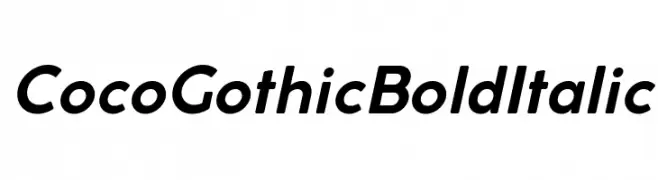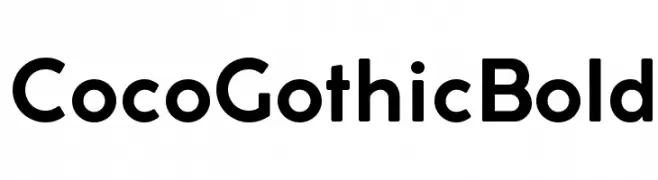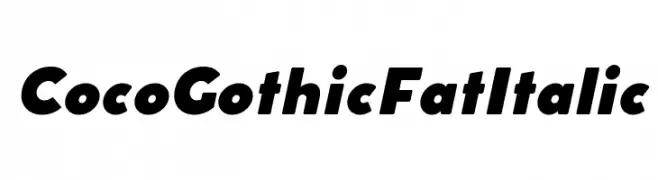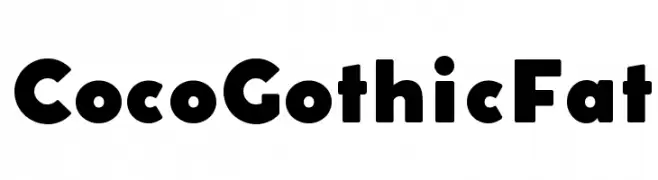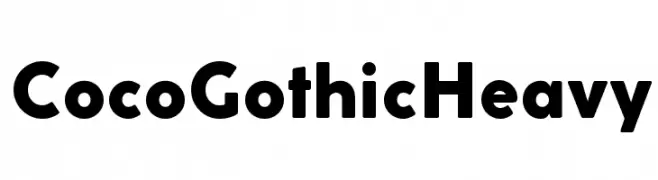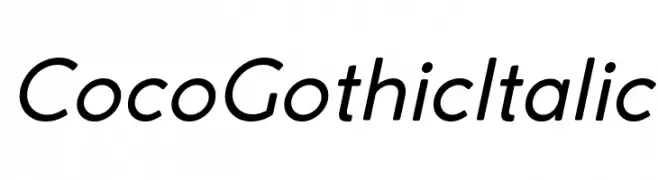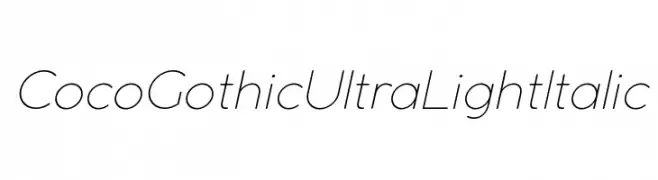
A bold, italicized font with a modern geometric style.
A sleek, modern, light italic sans-serif font with elegant slant.
A bold, geometric font with a modern and clean design.
A bold, italicized font with a modern, geometric style.
A sleek, ultra-light italic font with a modern and fluid design.
A sleek, ultra-light font with a modern, minimalist design.
A modern, italicized font with a sleek and uniform design.
A bold, italicized, and modern font with a geometric design.
A bold, modern sans-serif font with clean, geometric lines and high legibility.
A bold, modern sans-serif font with clean lines and geometric shapes.